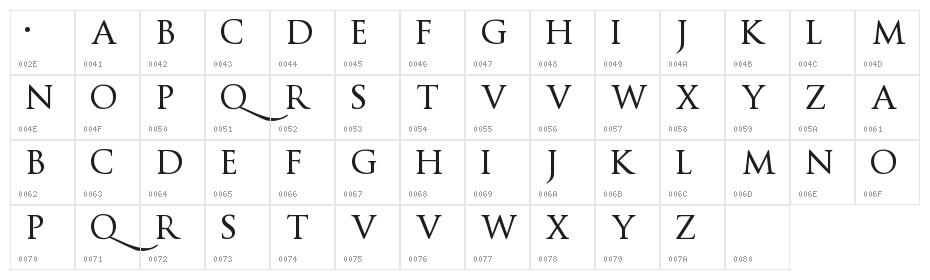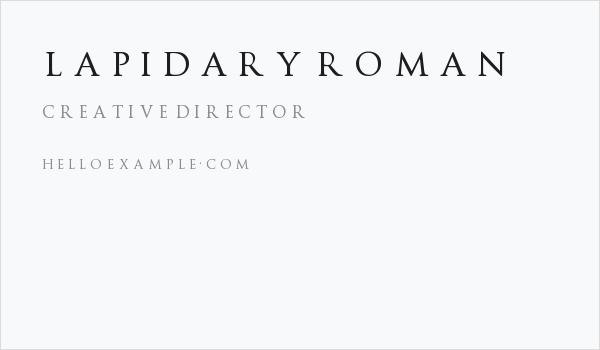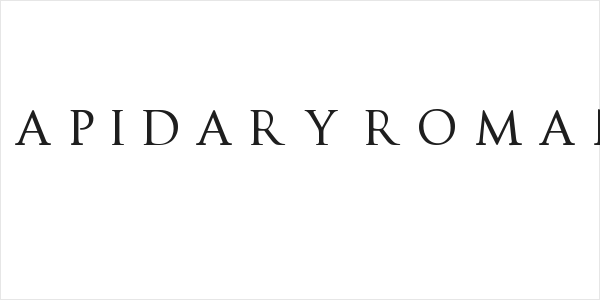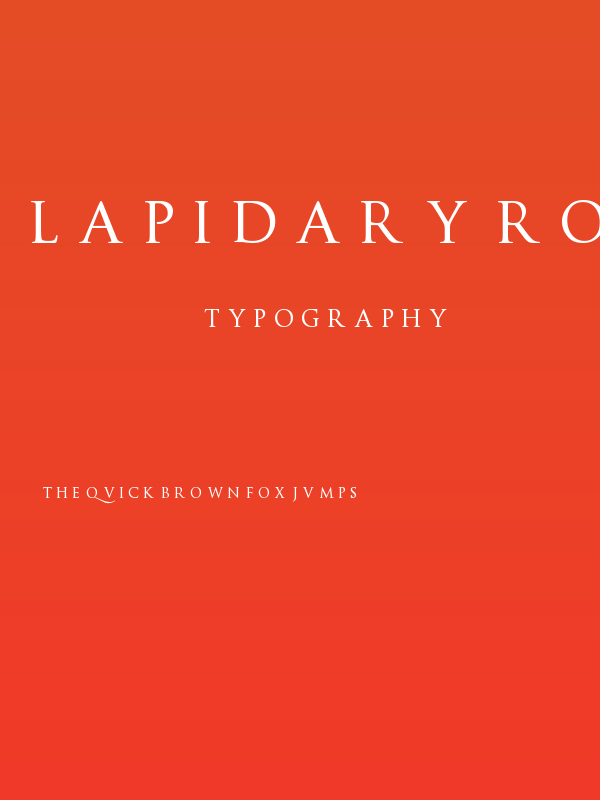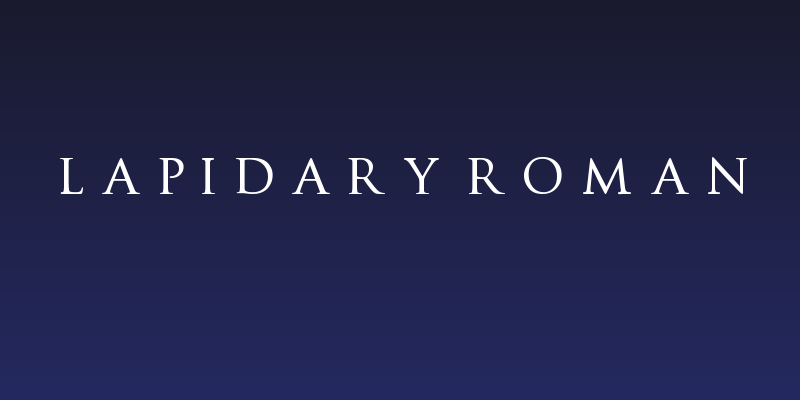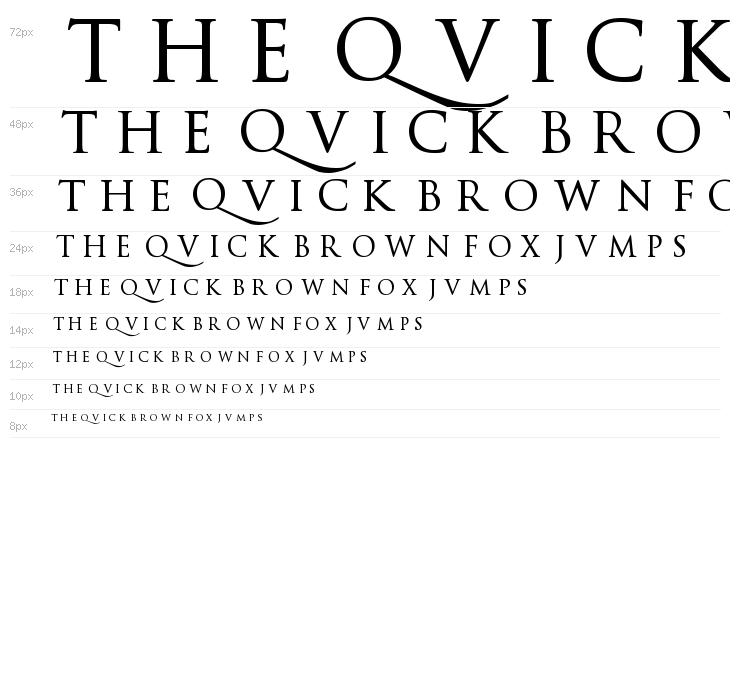
Lapidary roman Font
Lapidary roman Description
This font showcases a classic and elegant design with a strong emphasis on traditional serif elements. The characters are well-defined with a moderate contrast in stroke thickness, giving it a refined and sophisticated appearance. The serifs are pronounced, adding a touch of formality and timelessness. The overall style is reminiscent of Roman inscriptions, with a clean and precise look that conveys authority and stability. The spacing between characters is normal, ensuring readability while maintaining a cohesive visual flow. This font is versatile, suitable for a variety of applications where a classic and authoritative tone is desired.
| Proposed Projects | Ideal for formal documents, book covers, branding, and signage that require a timeless and authoritative look. |